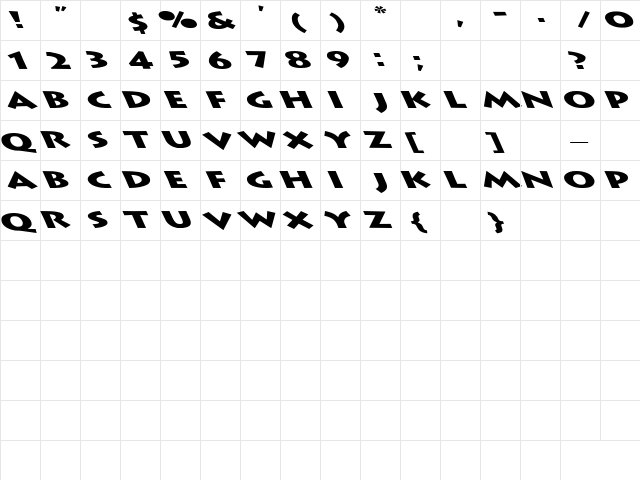
Lithograph Extended Leftie Regular
Design Context for Lithograph Extended Leftie Typeface
Lithograph Extended Leftie is a composed and adaptable typeface that performs quietly and consistently across a wide range of design contexts.